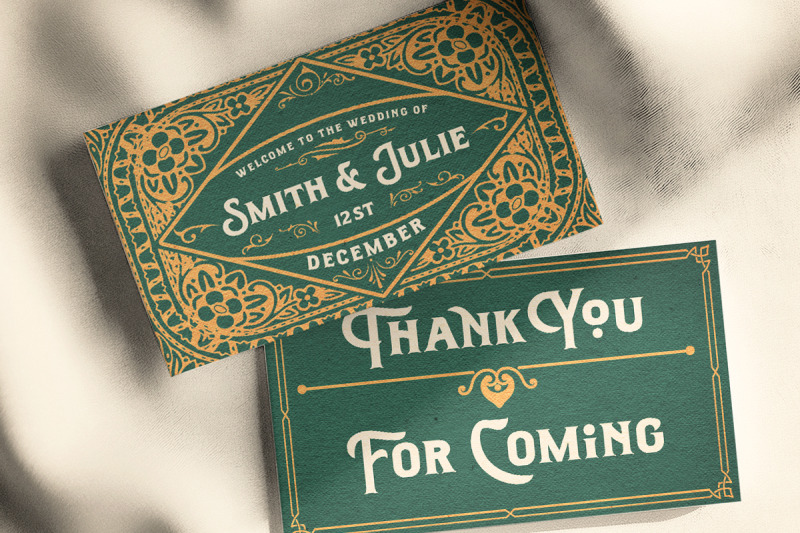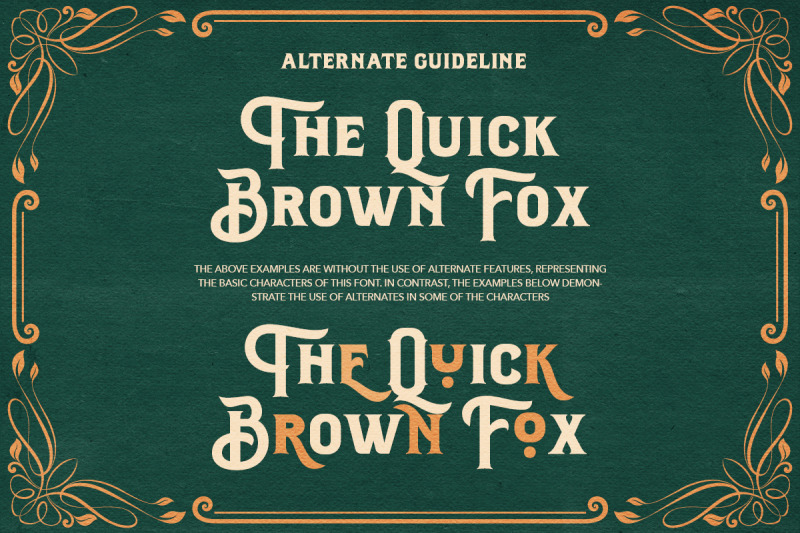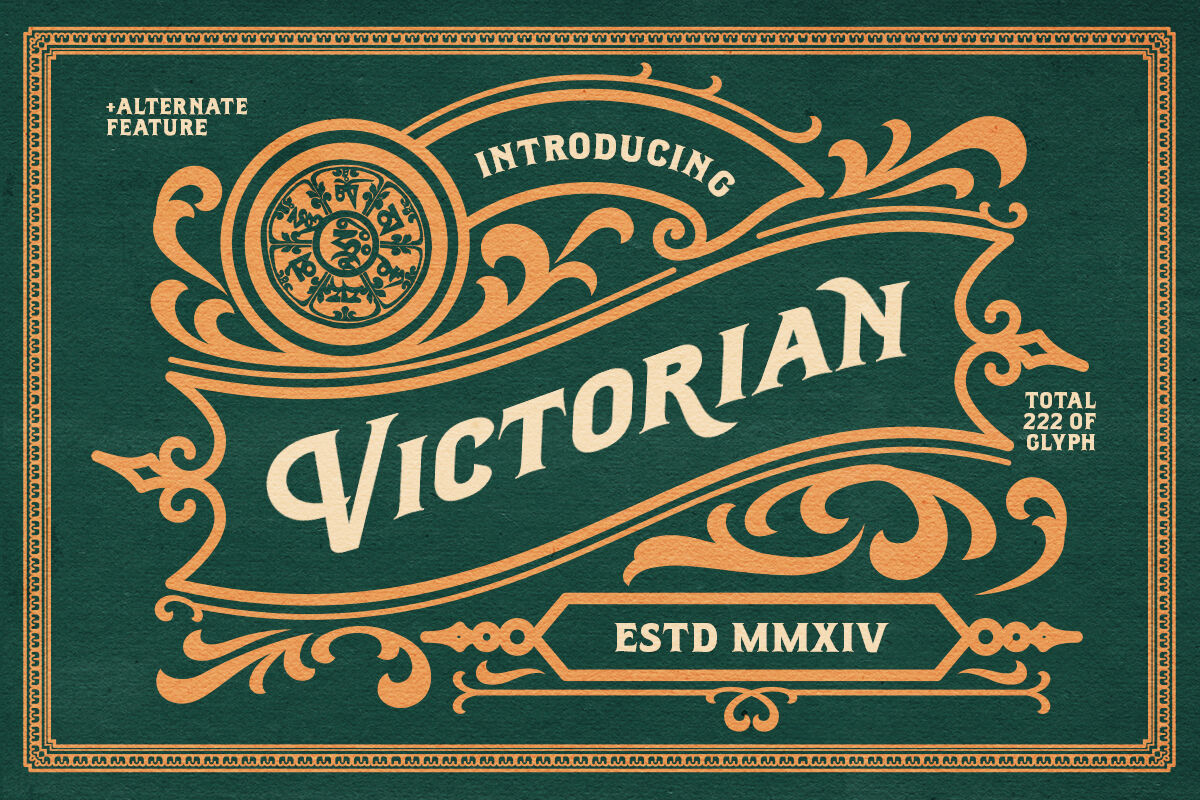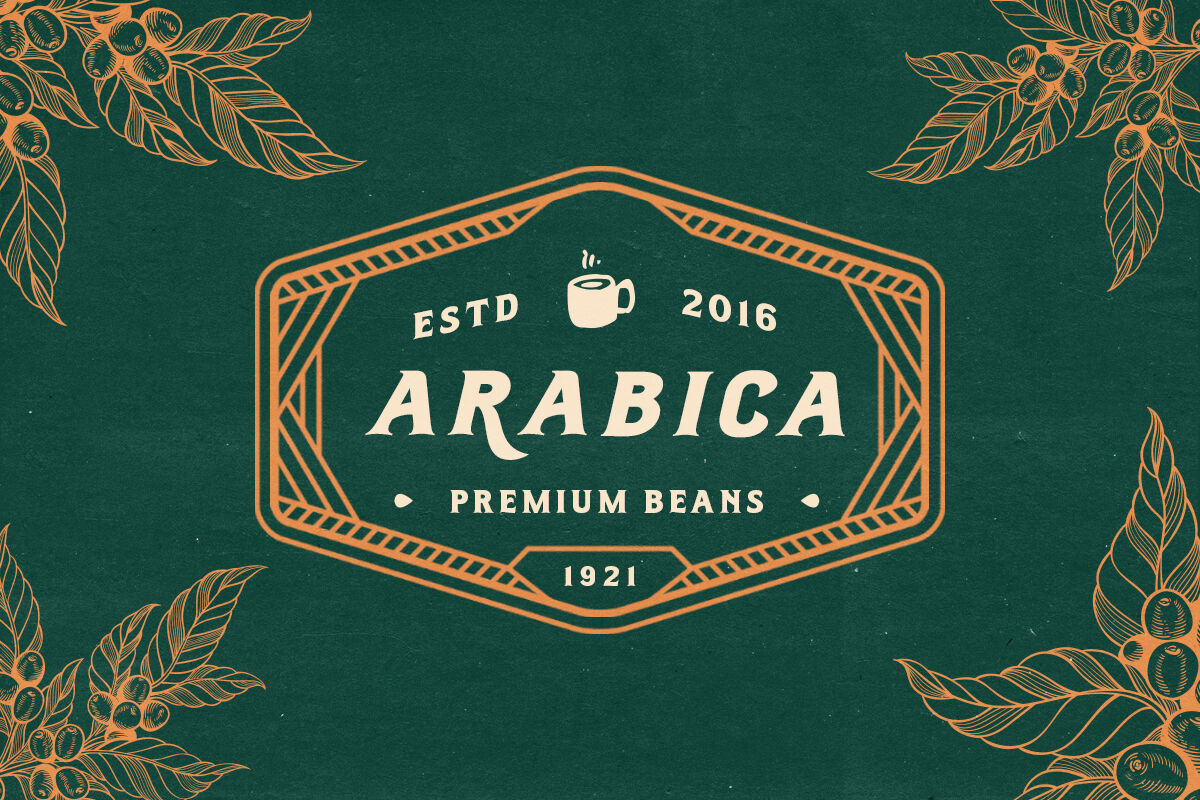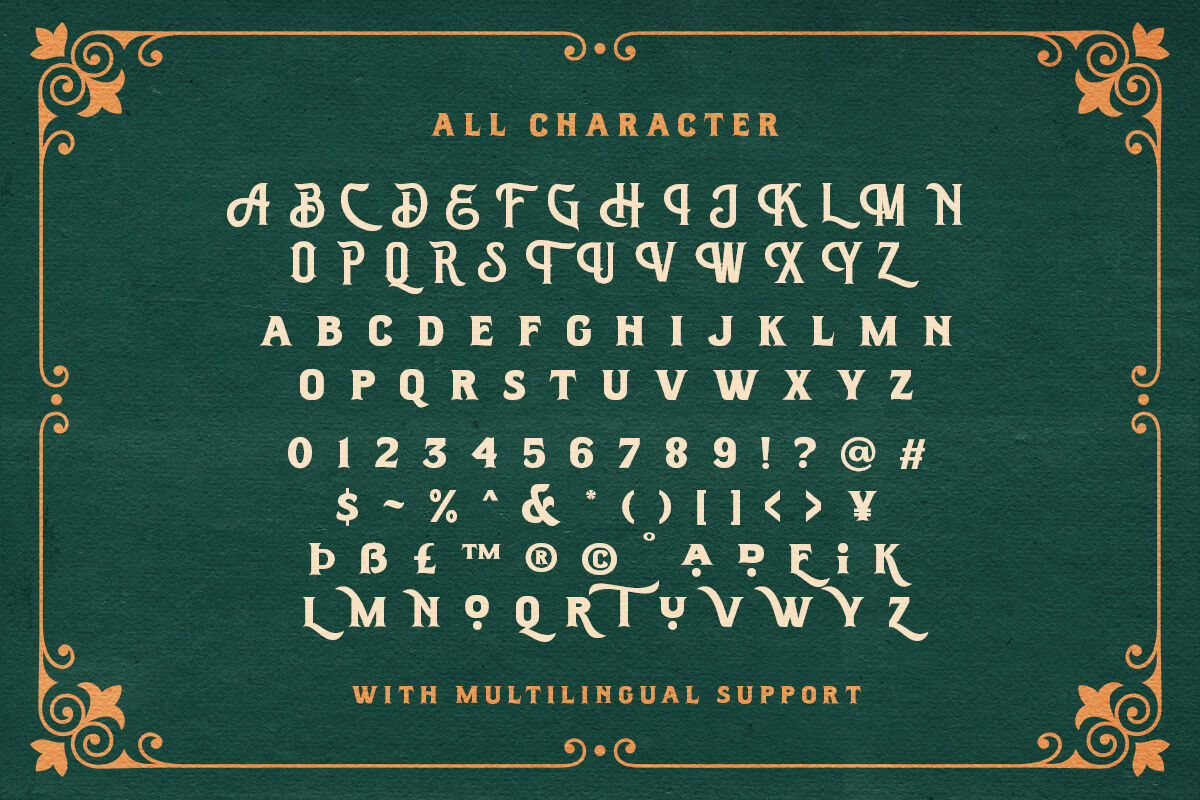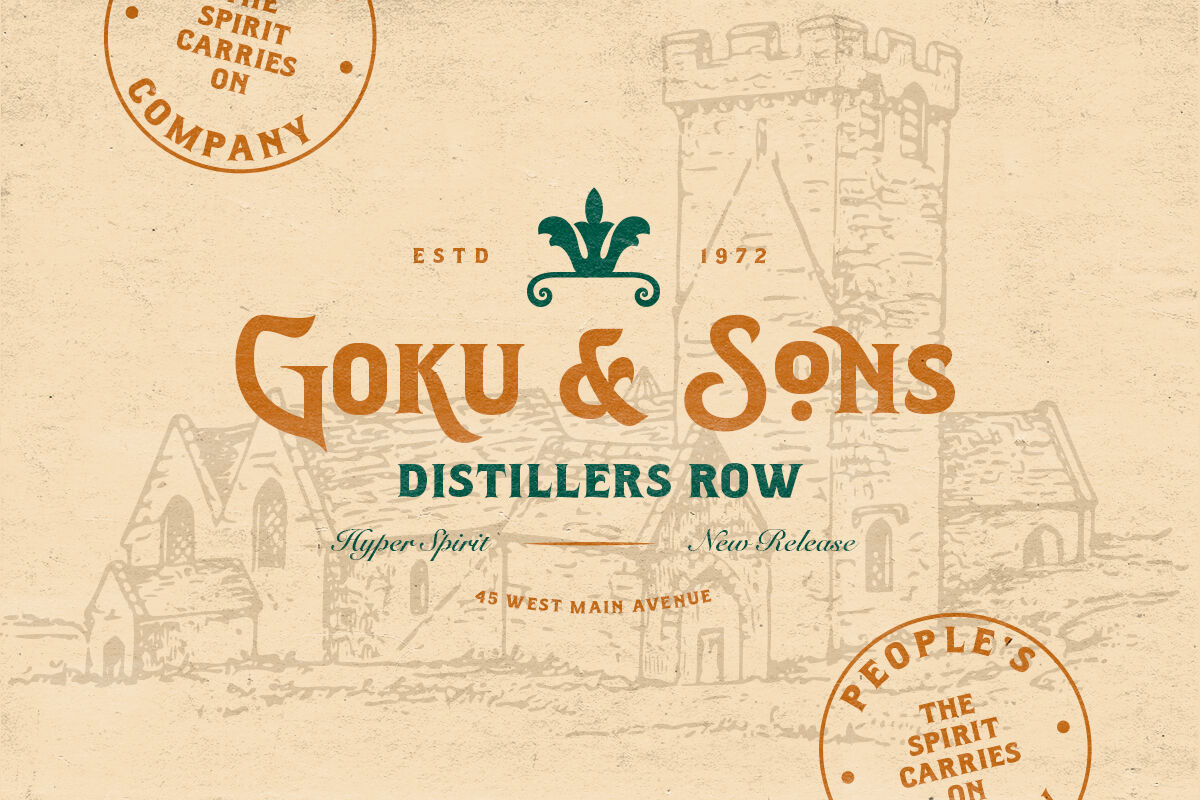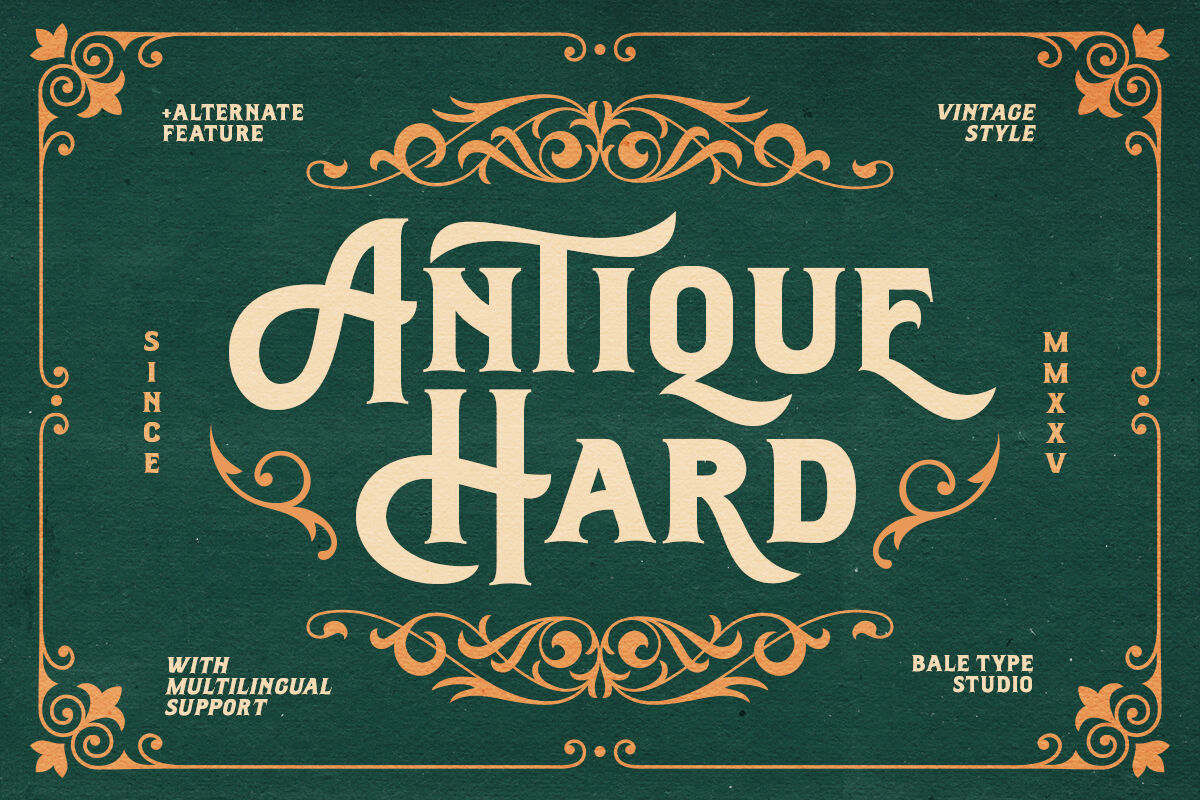
Antique Hard - Bold Vintage Font
Antique Hard is a bold vintage-inspired typeface that draws from classic sign painting and Victorian-era artistry. With its strong, solid presence and nostalgic charm, Antique Hard is perfect for headlines, logotypes, invitations, packaging, branding that need an old-school or victorian looks. This font also support multi language.